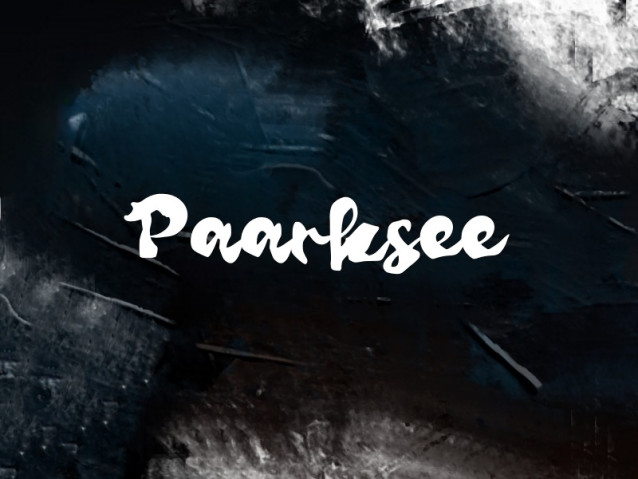
Paarksee Font
Paarksee Font is a simple and modern display font suitable for quotes, logos, headings, titles, and many more. Use it on any of your creative projects, and your designs will become outstanding!